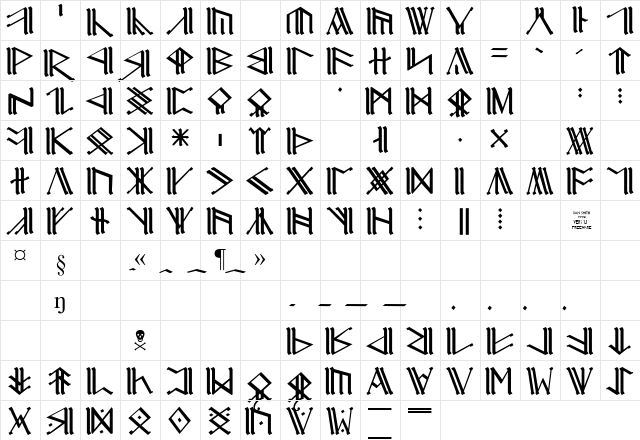
Cirth Erebor Caps-1 Regular
Design Context for Cirth Erebor Caps-1 Typeface
Cirth Erebor Caps-1 is a composed and adaptable typeface that performs quietly and consistently across a wide range of design contexts.